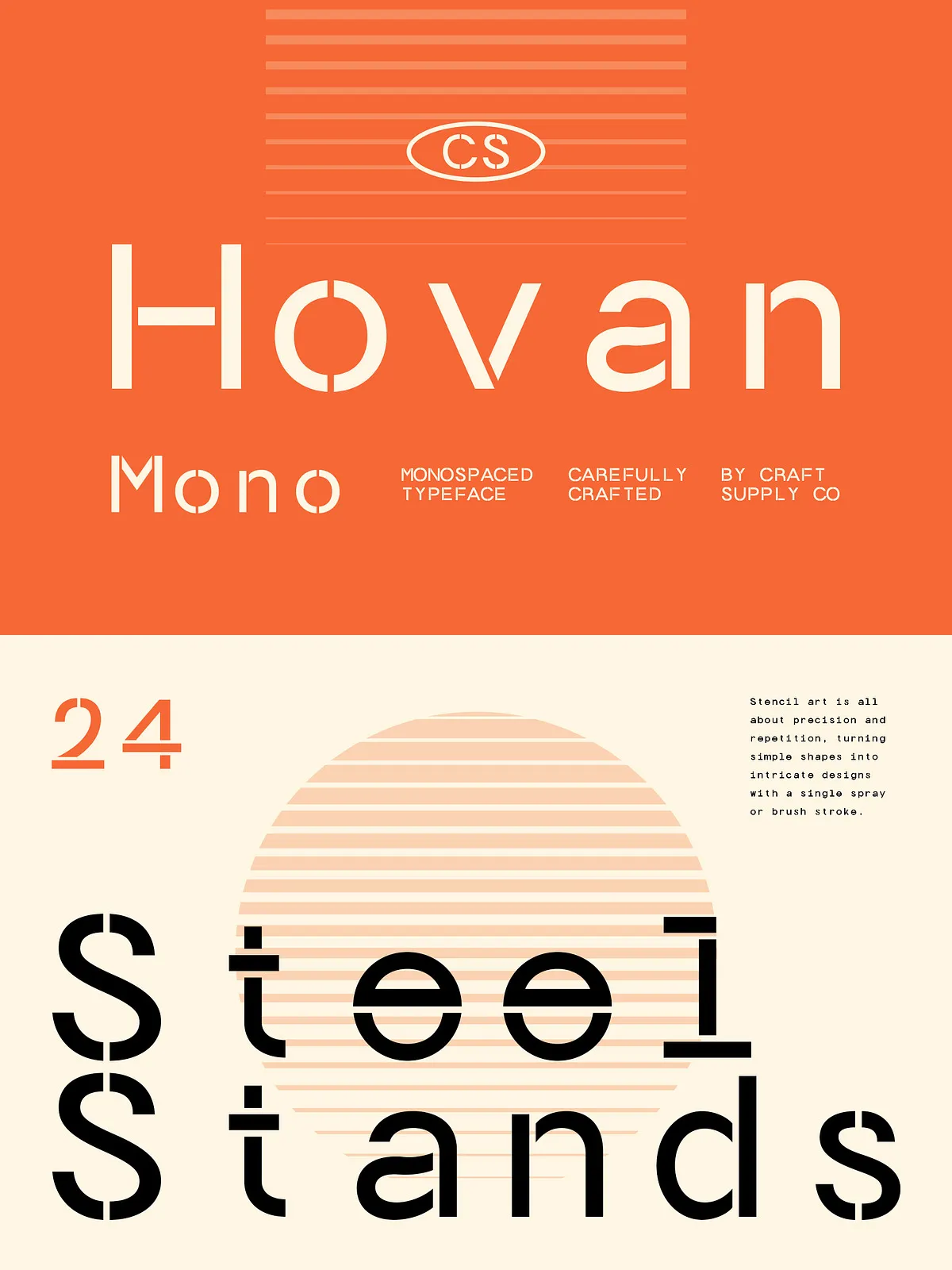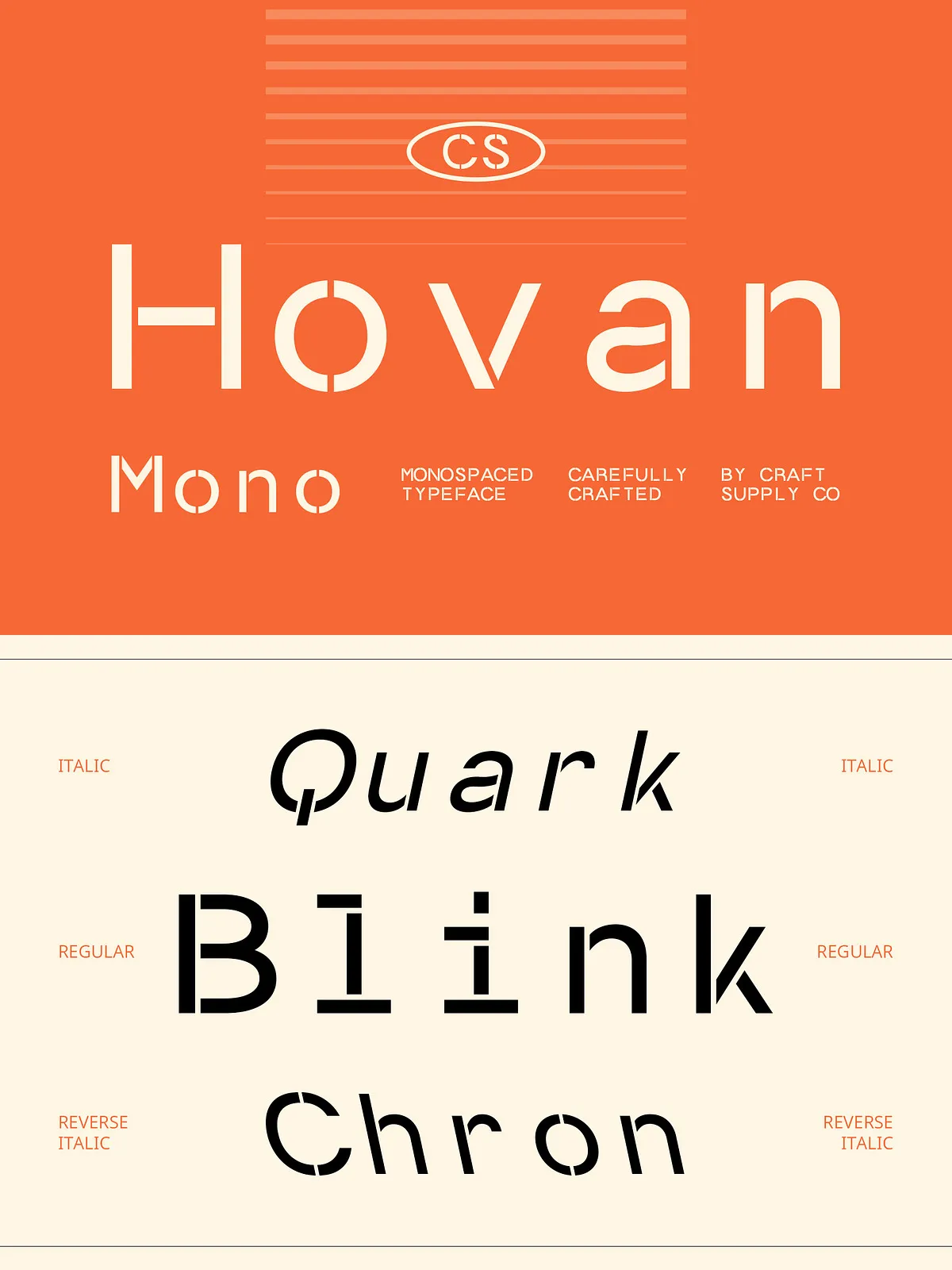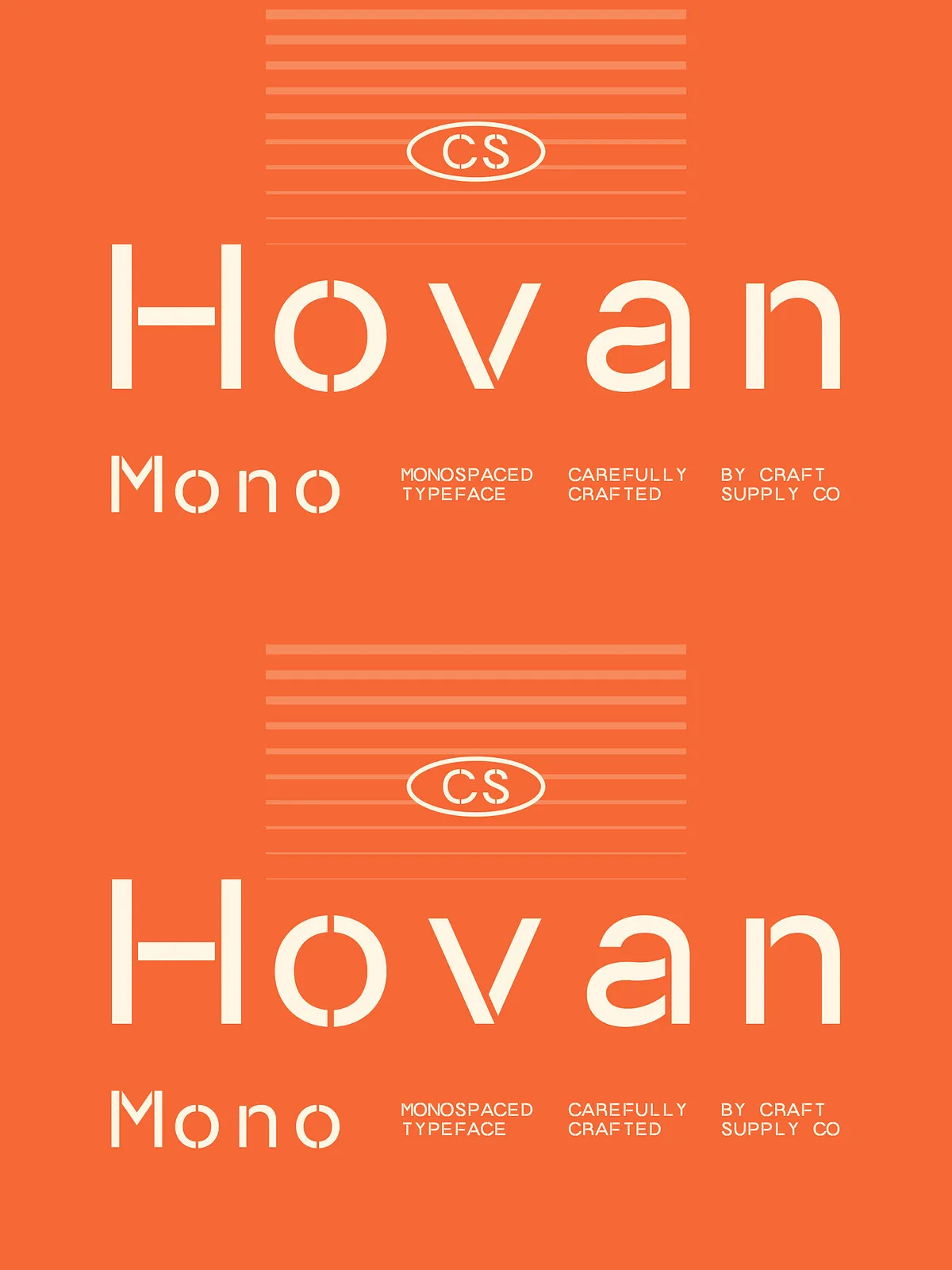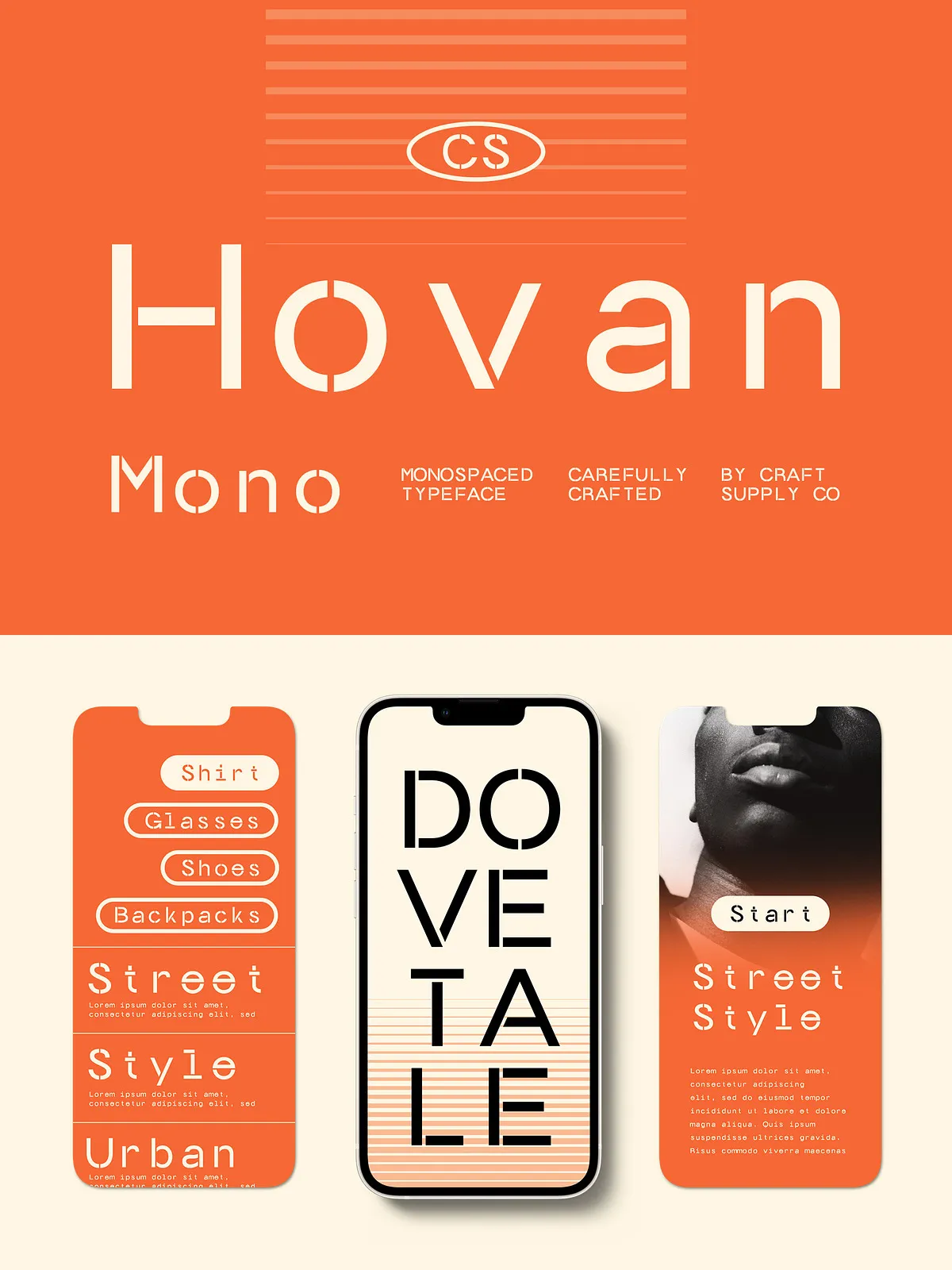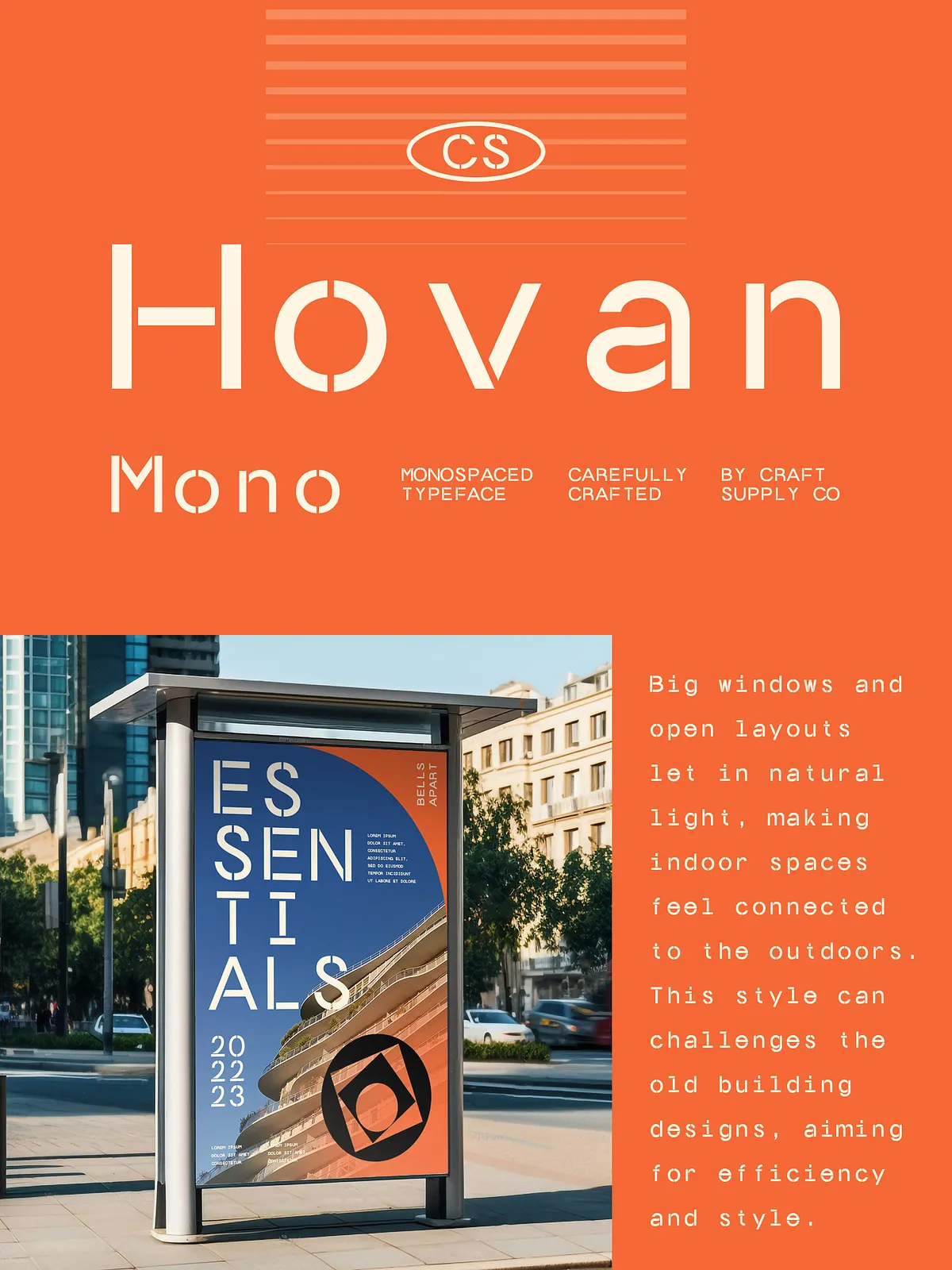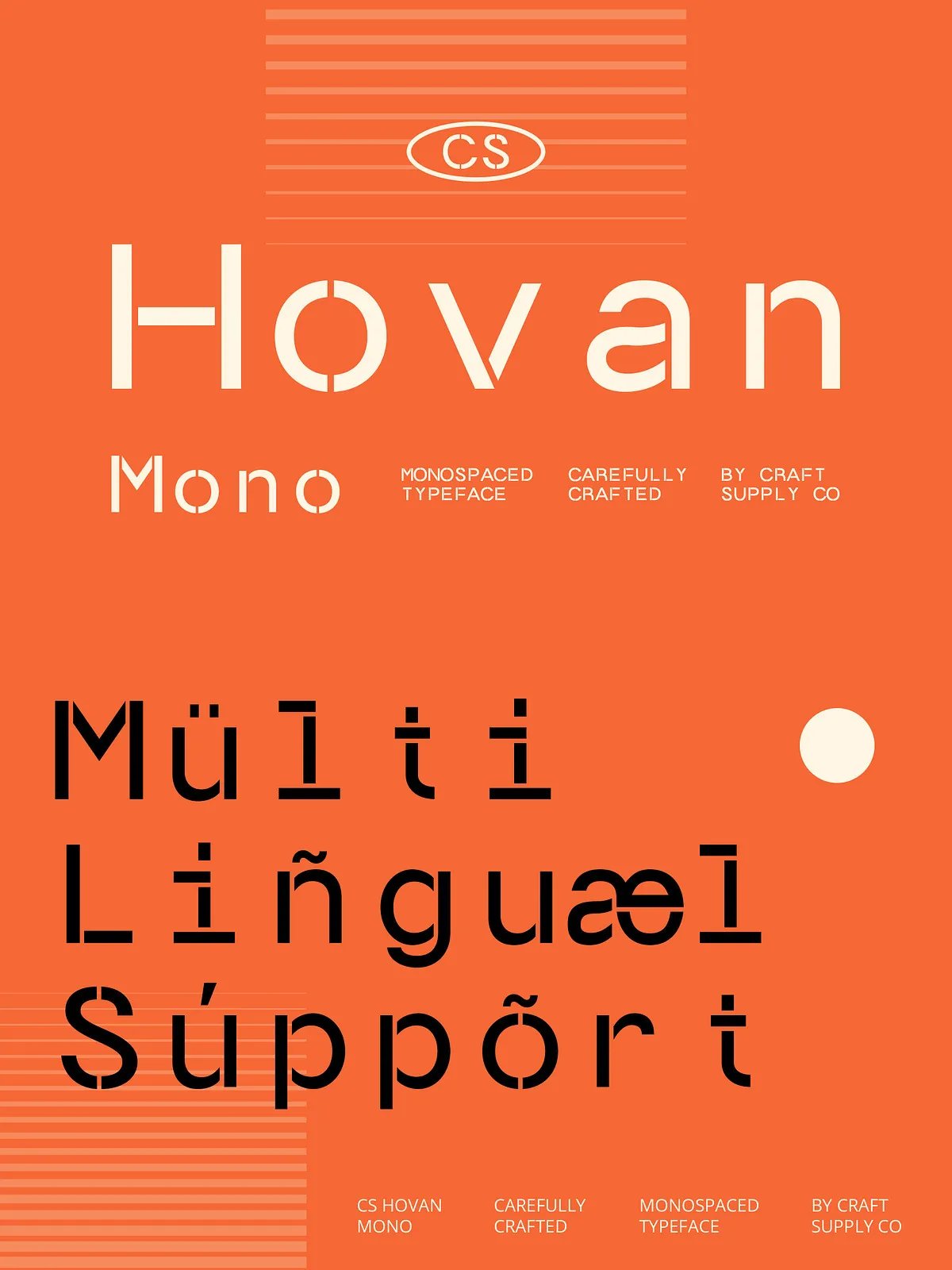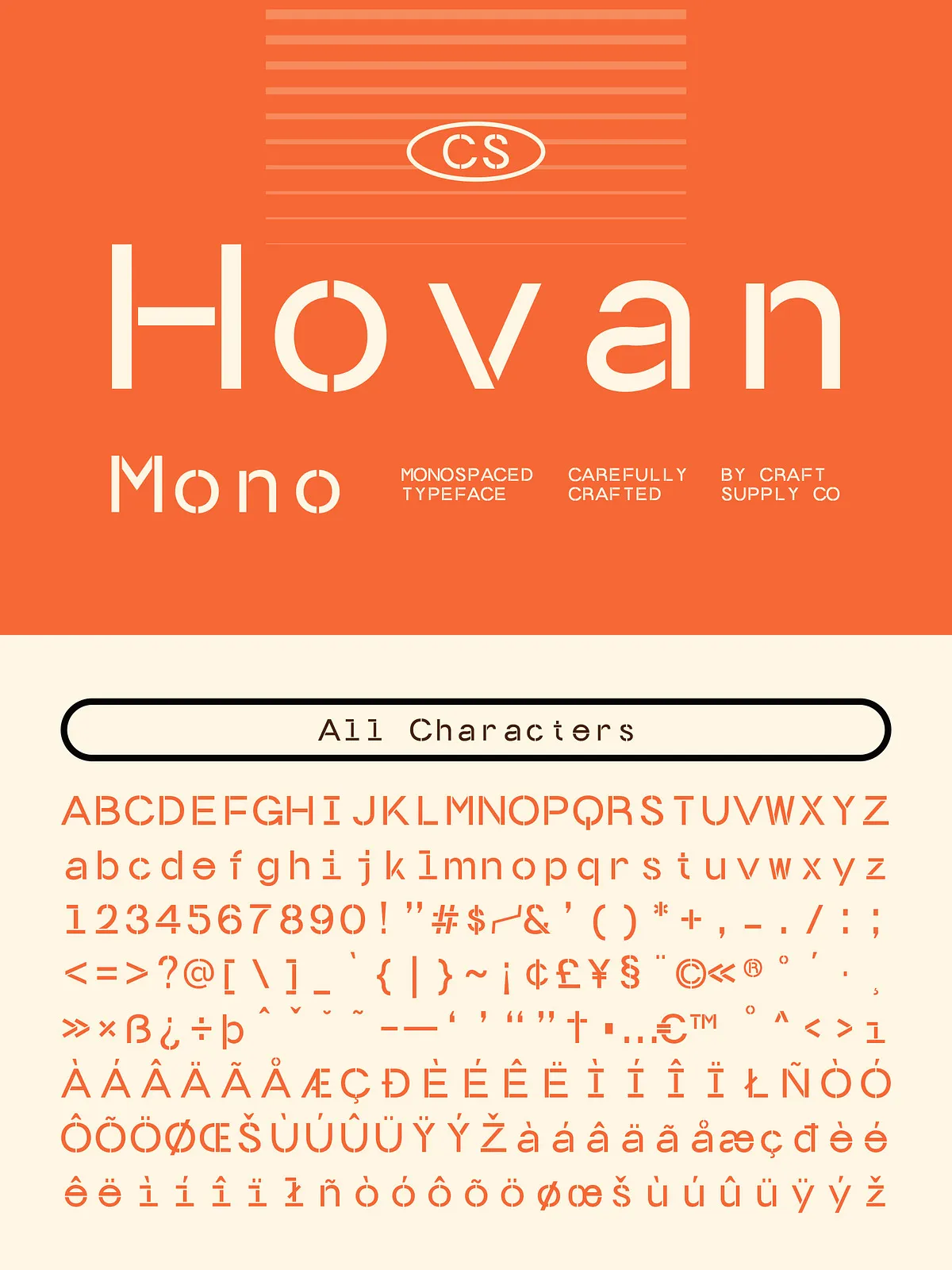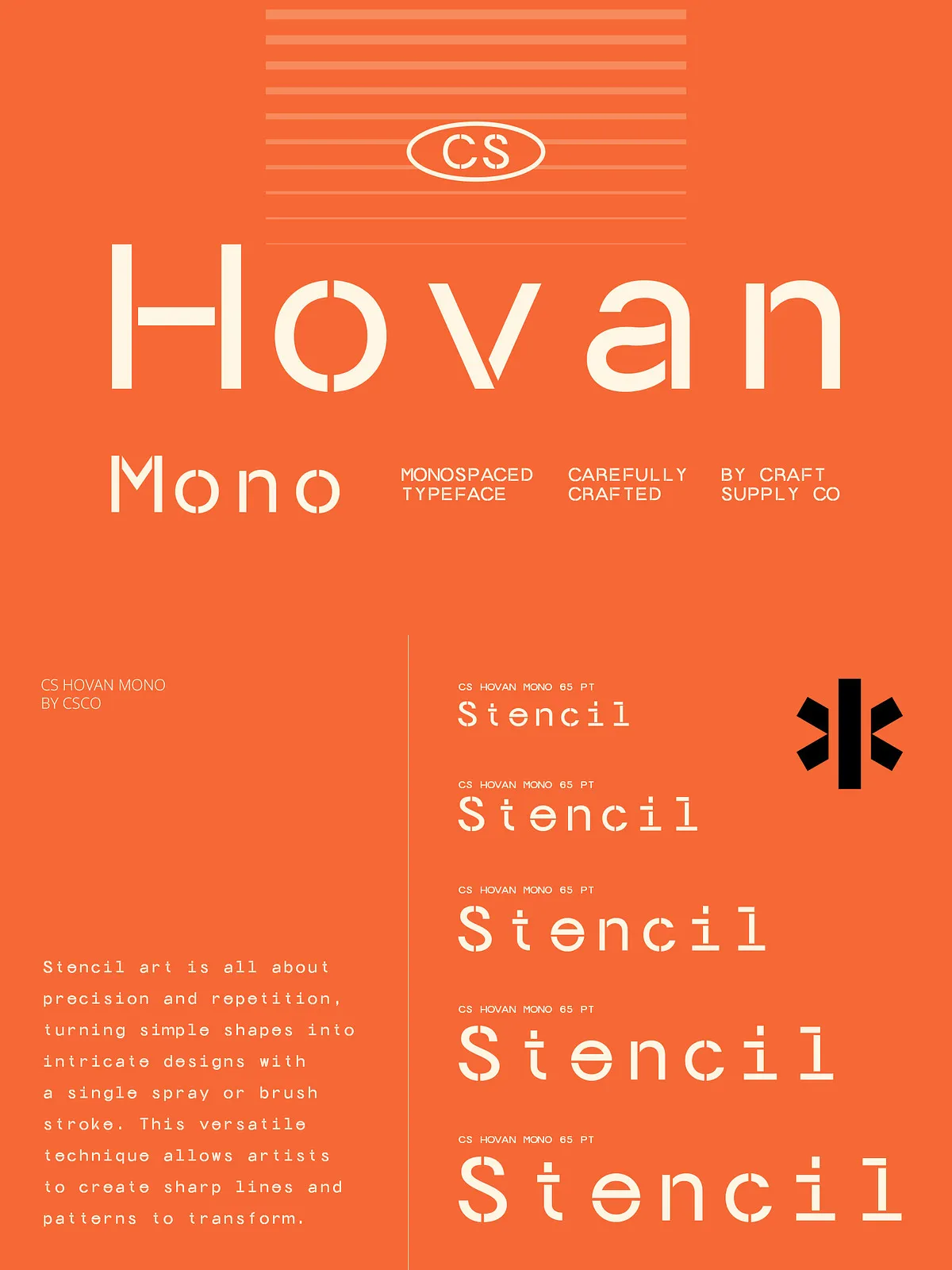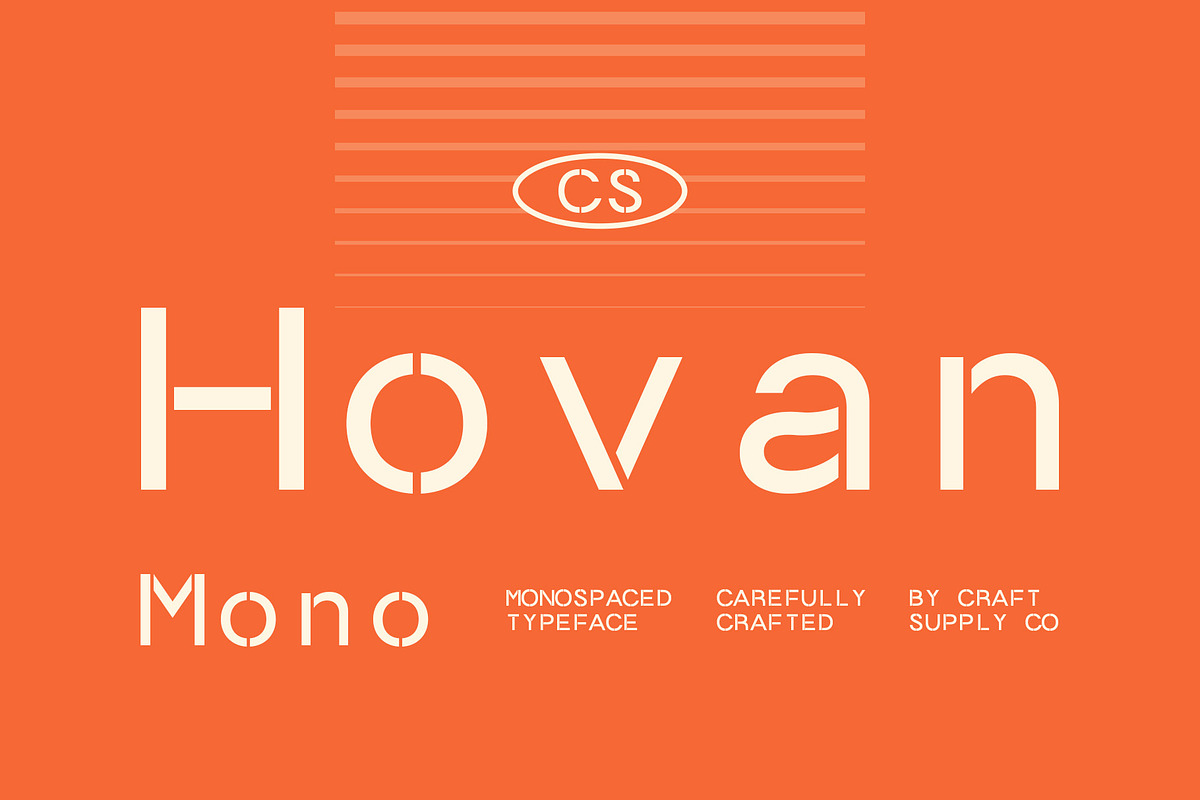
Introducing CS Hovan Mono — a revolutionary monospaced stencil font that redefines industrial typography. This isn’t just a typeface; it’s a visual statement. With its sharp, cutout edges and rigidly uniform character width, CS Hovan Mono channels the essence of machinery, engineering, and digital infrastructure. Every letterform is crafted to project authority, reliability, and a high-precision aesthetic — perfect for projects demanding boldness without sacrificing clarity.
Bold Stencil Aesthetic with Mechanical Authenticity
The defining feature of CS Hovan Mono is its industrial-stencil design. Each character features clean, intentional cutouts that mimic the look of stamped metal, printed signage, or machine-etched panel labels. This visual language evokes the world of factory floors, control panels, and high-tech environments. The result? A font that feels inherently technical, rugged, and unapologetically modern.
Use CS Hovan Mono to:
- Strengthen your tech brand identity with a mechanical edge.
- Signal precision in software documentation, coding interfaces, or API guides.
- Amplify tension and realism in dystopian or futuristic design narratives.
This is typography with muscle — not just a style, but a character.
Monospaced Perfection: Structure That Delivers Clarity
At the core of CS Hovan Mono lies a strict monospaced layout. Every character — from ‘i’ to ‘W’ — occupies the exact same horizontal space. This uniformity isn’t just aesthetic; it’s functional. It ensures perfect alignment across columns, grids, and code blocks, eliminating visual distractions and enhancing legibility.
Why monospacing matters:
- Coding & Technical Writing: Lines of code snap into place with zero misalignment. Syntax becomes instantly scannable.
- Terminal-Style Interfaces: Achieve authentic command-line or system dashboard realism.
- Typography with Purpose: Create deliberate grid-based layouts where rhythm and symmetry are paramount.
CS Hovan Mono turns technical typography into a tool of design leadership.
Advanced OpenType Features for Professional-Grade Work
Powered by modern OpenType technology, CS Hovan Mono delivers a rich suite of features designed for real-world use:
- Full Uppercase & Lowercase Support — from ‘A’ to ‘z’ with crisp, consistent spacing.
- Extended Punctuation & Numerals — standard and contextual ligatures for clean, professional output.
- Comprehensive Accents — multilingual support includes French, German, Spanish, Portuguese, and more with full diacritical compatibility.
- PUA Encoding — ensures rare symbols and design glyphs are accessible without relying on font fallbacks.
No compromises. Just precision, reliability, and expressive freedom across every language and platform.
Craft Your Vision Across Any Medium
CS Hovan Mono thrives in both digital and physical environments. Its solid stroke weight and sharp cutouts reproduce flawlessly at any scale — from ultra-high-resolution screens to large-format printing on metal or fabric.
Perfect Applications for Every Creative Challenge
- Technology & SaaS Branding: Build trust through a mechanical, no-nonsense visual identity.
- Software & UI Design: Create intuitive interfaces with a tactile, hardware-inspired feel.
- Industrial Design & Architecture: Use for floor plans, schematics, and render titles.
- Coding Documentation & Terminal Art: Bring code samples and configuration files to life with visual depth.
- Merchandise & Apparel: Print on t-shirts, industrial wear, or tech accessories with a bold, lasting impression.
The family includes:
- CS Hovan Mono Regular
- CS Hovan Mono Italic
Elevate Your Design with CS Hovan Mono
Stop blending into the digital noise. With CS Hovan Mono, you choose to stand out — not with gimmicks, but with substance. A font built for engineers, designers, and visionaries who value precision, durability, and bold expression. Whether you’re coding the next app, designing a factory interface, or launching a brand with an industrial soul, let CS Hovan Mono be the voice of your innovation.